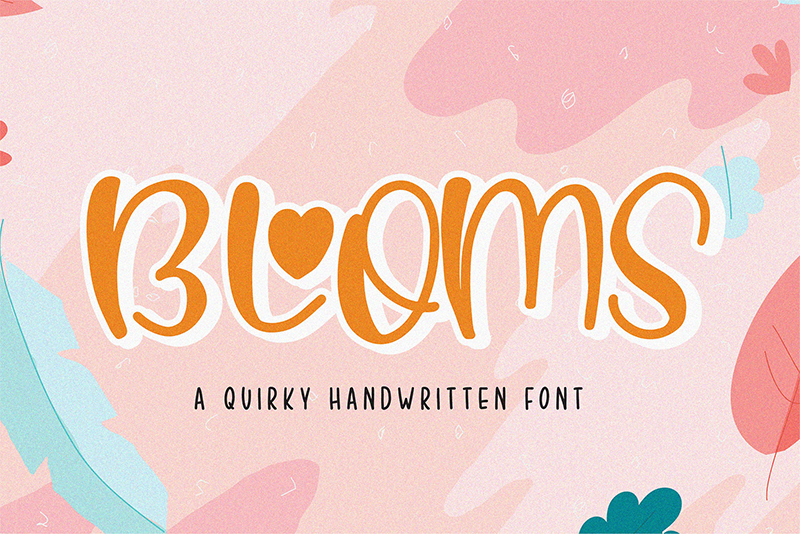
Font name: | Blooms |
Author: | Nirmana Visual |
This Font Just Free Personal Use / Demo Version, For Commercial Use please buy at : www.nirmanavisual.com Say hello for our best seller " Blooms " A Quirky Font This is perfect for Crafting, Branding, Logos, packaging, masterheads and more. Blooms features : Multilanguange PUA Encoded Please kindly message us for any question or issue about our product. Hope you love it and Happy crafting !!! Email Contact: nirmanavisual@gmail.com / support@nirmanavisual.com Website : www.nirmanavisual.com Instagram : https://www.instagram.com/nirmanavisual/ |